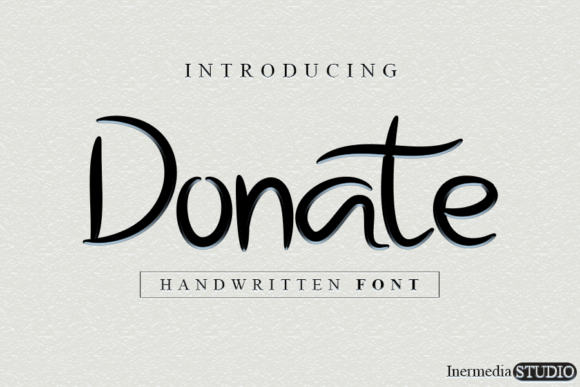
Font Choice That Matters: Why I Chose Donate for My Coaching Website
I was working on a coaching website for a small business owner who wanted to create a warm, approachable brand. The site needed to feel personal and trustworthy while still being professional enough to establish credibility. I had a few fonts in mind, but none quite hit the right balance. That’s when I came across Donate, a cute and casual handwritten font with an incredibly friendly feel.
A Friendly First Impression
I started by testing Donate in the hero section of the homepage. It immediately made the layout feel more inviting. The font has a natural, flowing script that feels like it was written by hand—perfect for a brand that wants to connect with its audience on a personal level. I placed it over a soft image banner, and the contrast between the bold, playful text and the gentle background created a nice visual rhythm.
One thing I noticed right away was how Donate added personality without overwhelming the design. It wasn’t too busy or too childish, which is a common pitfall with many script fonts. Instead, it felt like a conversation starter—something that would make users want to read more.
Readability and Usability
As I continued to build out the layout, I tested Donate in different contexts. I used it for the main headline, a few subheadings, and even some call-to-action buttons. On desktop, it looked great, but I wanted to make sure it worked well on mobile as well. I zoomed in on smaller screens and checked how the font performed at lower resolutions.
The font maintained its legibility even at smaller sizes, which is a big plus for responsive web design. I also tested it against both light and dark backgrounds, and it worked well in both scenarios. However, I did notice that on very dark backgrounds, the contrast could be slightly low. To fix this, I adjusted the background color slightly and ensured there was enough white space around the text to maintain readability.
Font Pairing and Visual Hierarchy
When choosing a font, it’s important to consider how it pairs with other typography elements. For Donate, I paired it with a clean sans-serif font like Montserrat for body copy. This combination allowed the display font to stand out while keeping the rest of the content easy to read.
I also used Donate sparingly for decorative accents, such as headings in sidebars or buttons on the contact page. This helped reinforce the brand’s personality without making the design feel cluttered. It’s a great example of how a single font can be used in multiple ways to enhance the overall user experience.
Branding and User Engagement
One of the biggest advantages of using Donate was how it contributed to the brand’s identity. The font’s friendly and approachable style aligned perfectly with the coaching services offered. It helped create a sense of trust and warmth that resonated with the target audience.
Additionally, I noticed that users spent more time reading content when Donate was used in key areas like headlines and CTAs. It made the content feel more engaging and less like a typical sales page. This subtle change in typography had a noticeable impact on user behavior and engagement metrics.
Technical Considerations
Before finalizing my decision, I made sure to check the technical aspects of Donate. I verified that it was available as a webfont and supported the necessary file formats for use on the website. I also confirmed that it included alternate weights and styles, which gave me more flexibility in design choices.
Another important consideration was the font’s licensing. Since the website was intended for commercial use, I made sure that the font was properly licensed for online projects. This step is crucial for any designer working on client projects or launching an online store.
Real-World Applications
Donate is versatile enough to work in a variety of digital environments. I’ve seen it used effectively in creative portfolios, boutique online stores, blog headers, and campaign landing pages. It’s especially well-suited for brands that want to convey a friendly, artistic, or handmade aesthetic.
For example, a boutique online store might use Donate for product titles and promotional banners to create a more personal shopping experience. A course sales page could use it for headlines and CTA buttons to encourage sign-ups. Even a digital brand kit can benefit from the font’s unique character and charm.
Final Thoughts
Choosing the right font is more than just a design decision—it’s about creating an emotional connection with your audience. Donate does exactly that. It brings a sense of warmth and personality to any project without sacrificing readability or usability.
If you’re looking for a font that can elevate your brand’s visual appeal while maintaining a strong presence in digital spaces, Donate is definitely worth considering. It’s a great addition to any web designer’s toolkit, especially for those working on creative or personal branding projects.